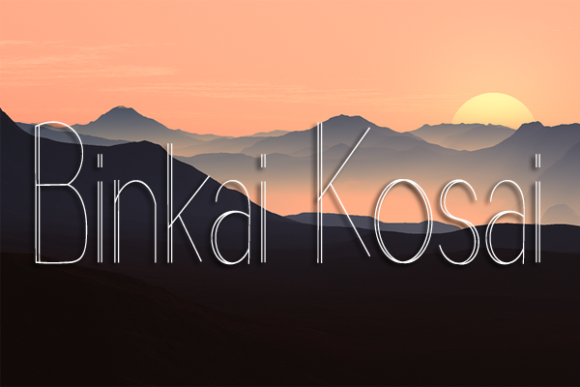
Journey into the world of captivating dance posters, where every step tells a story and every movement ignites emotions. Meet Binkai Kosai, the display font family that dances off the screen with its modern and cool aesthetics. Created by the visionary RR Studio, Binkai Kosai is not just a font; it's an expression of dynamism, rhythm, and grace.
Step into the spotlight and let your dance posters radiate with a touch of elegance and vibrancy. With Binkai Kosai, your words will pirouette across the page, capturing the essence of movement and leaving an indelible mark on your audience. Feel the energy of Binkai Kosai flow through your designs, transforming them into captivating masterpieces.
Binkai Kosai is a versatile font that seamlessly adapts to various web designs, business cards, and any creative project yearning for a unique touch. Its clean, sharp lines lend a sense of sophistication, while its playful curves inject a touch of whimsy, making it the perfect choice for dance-themed posters that demand attention.
Picture this: A poster adorned with Binkai Kosai, showcasing a troupe of dancers mid-performance. The font becomes an integral part of the poster, harmonizing with the dancers' fluid movements and expressing their passion and energy. Each letter dances in perfect synchronization, creating a captivating visual symphony that draws the viewer into the heart of the performance.
With Binkai Kosai, you hold the power to evoke emotions, paint stories, and ignite imaginations. Transform your dance posters into captivating works of art that leave a lasting impression. Embrace the rhythm, embrace the movement, and embrace Binkai Kosai, your ultimate font partner in the world of dance and beyond. Unleash your creativity and let your designs take center stage!